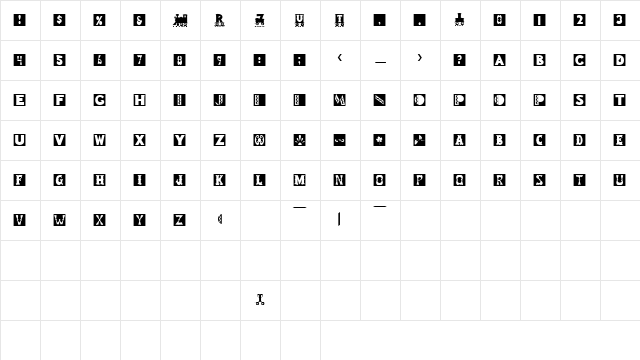
SnakeOilSSK Regular
SnakeOilSSK Regular Family
Design Context for SnakeOilSSK
SnakeOilSSK is a composed and adaptable typeface that performs quietly and consistently across a wide range of design contexts.